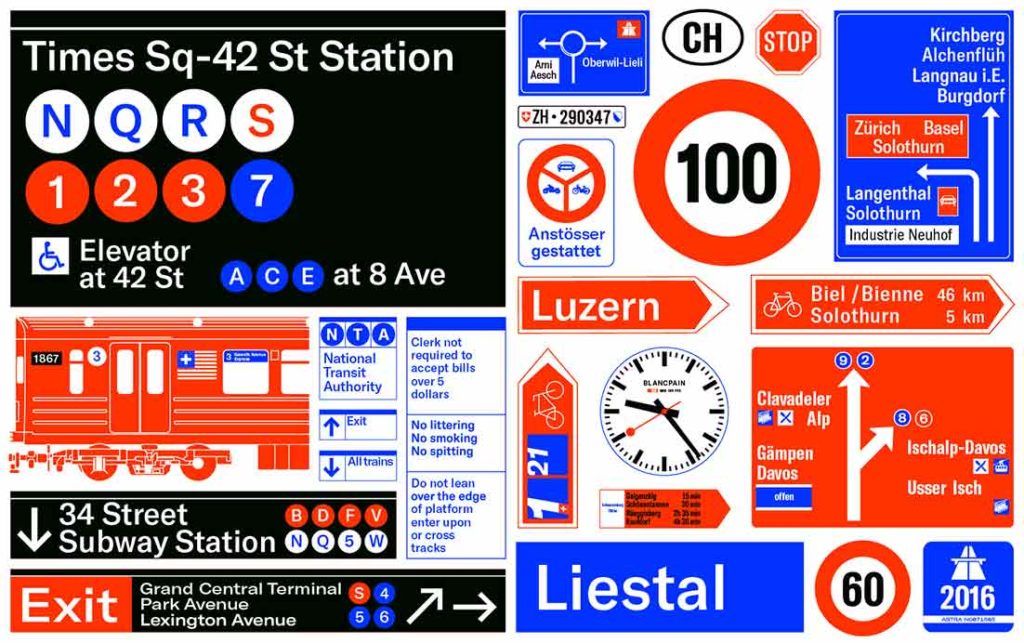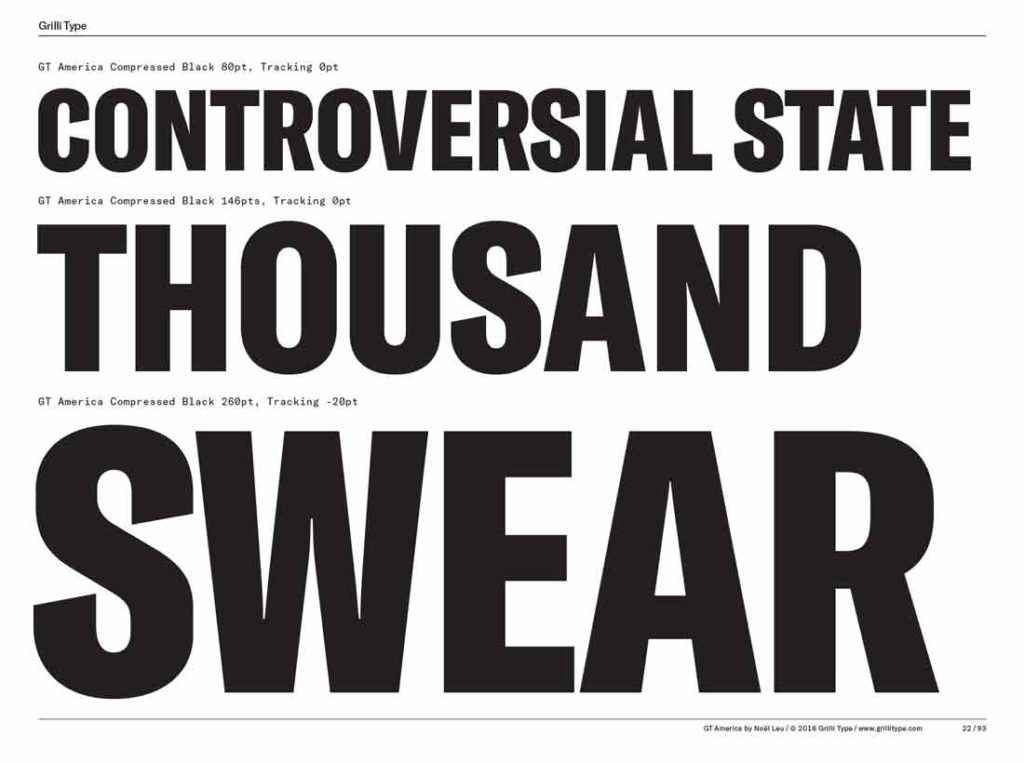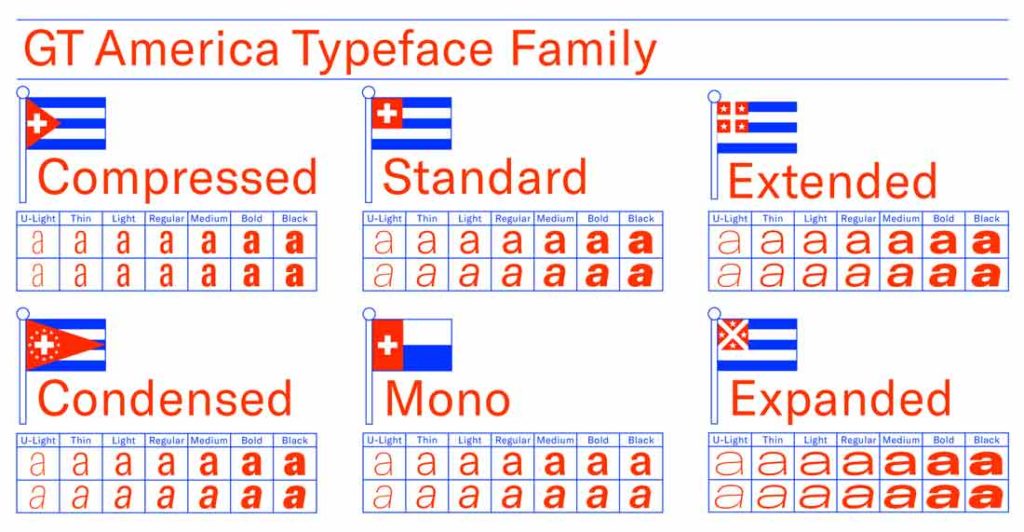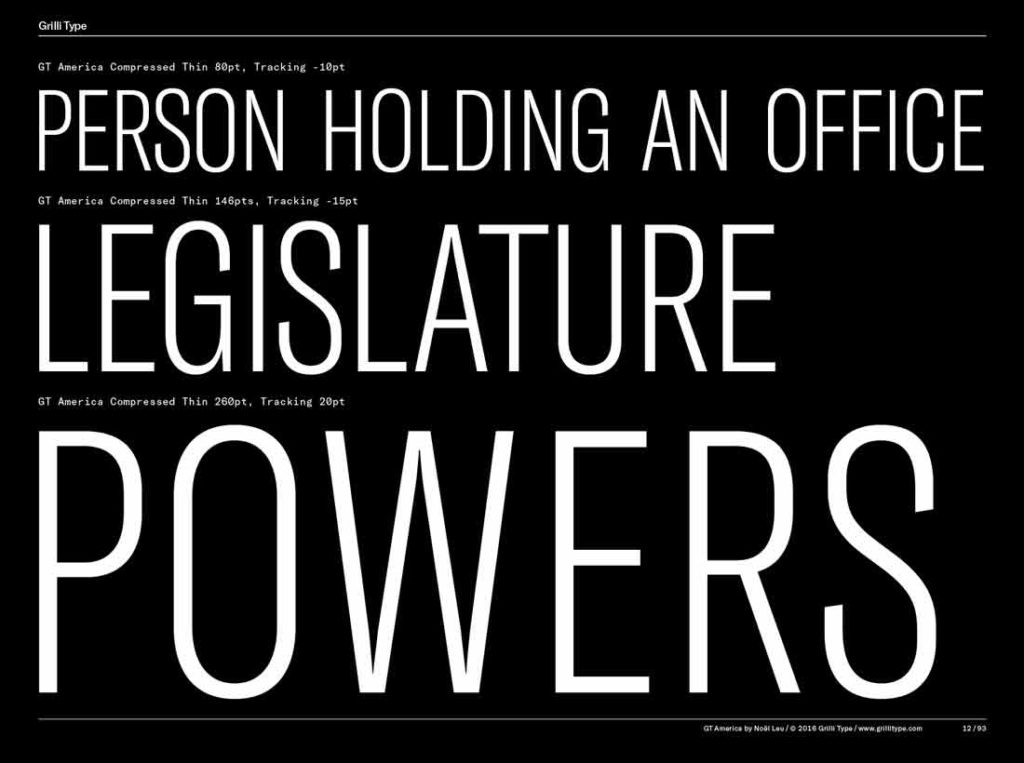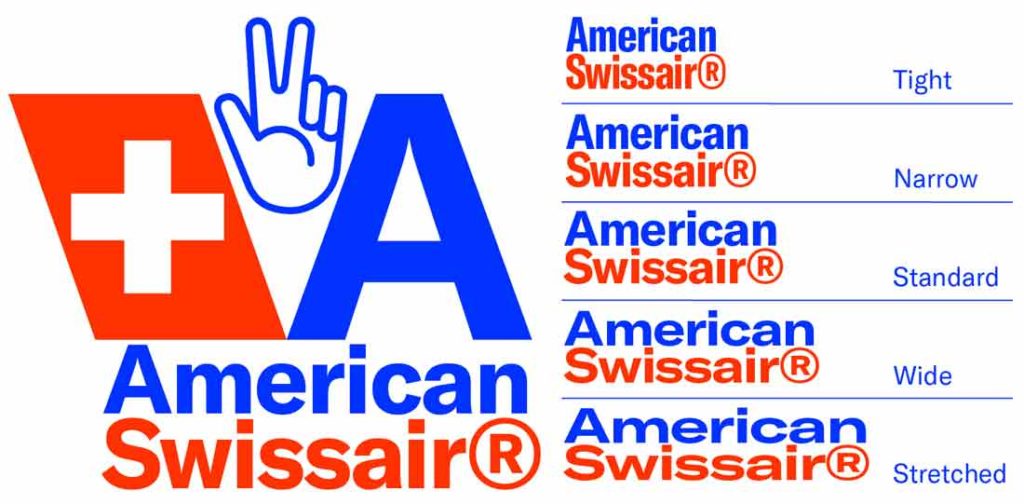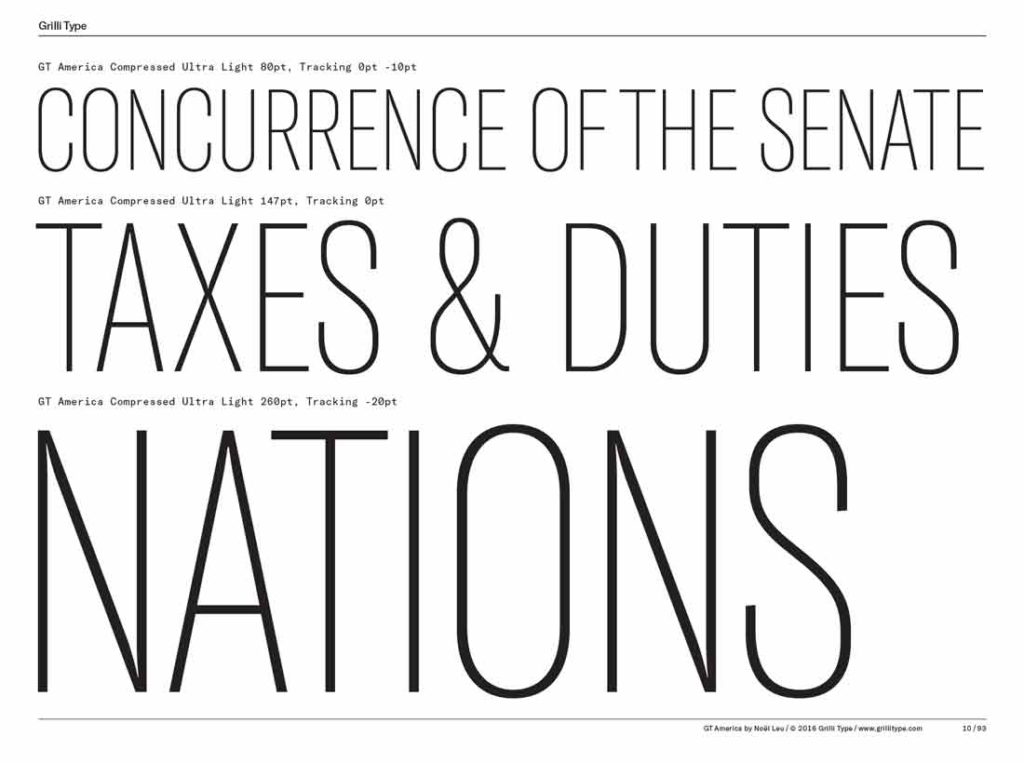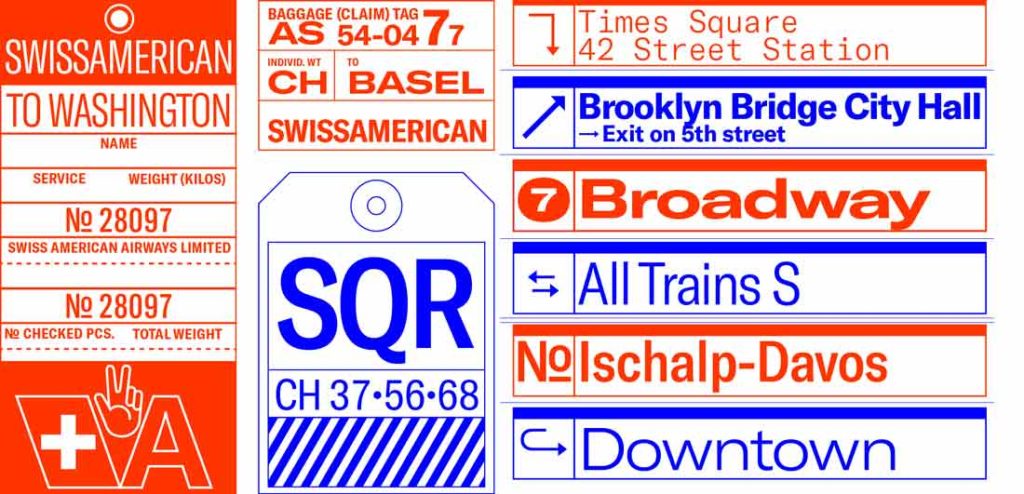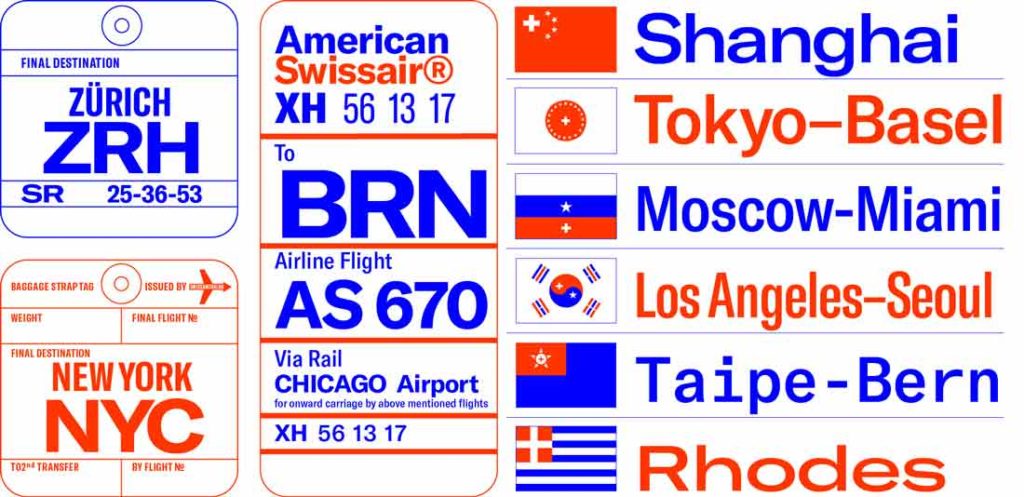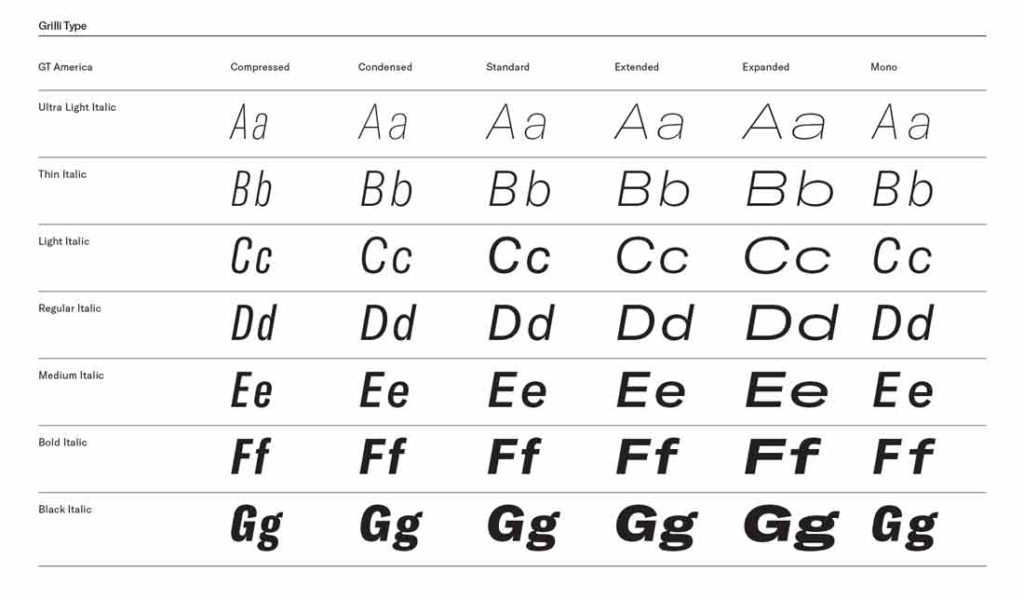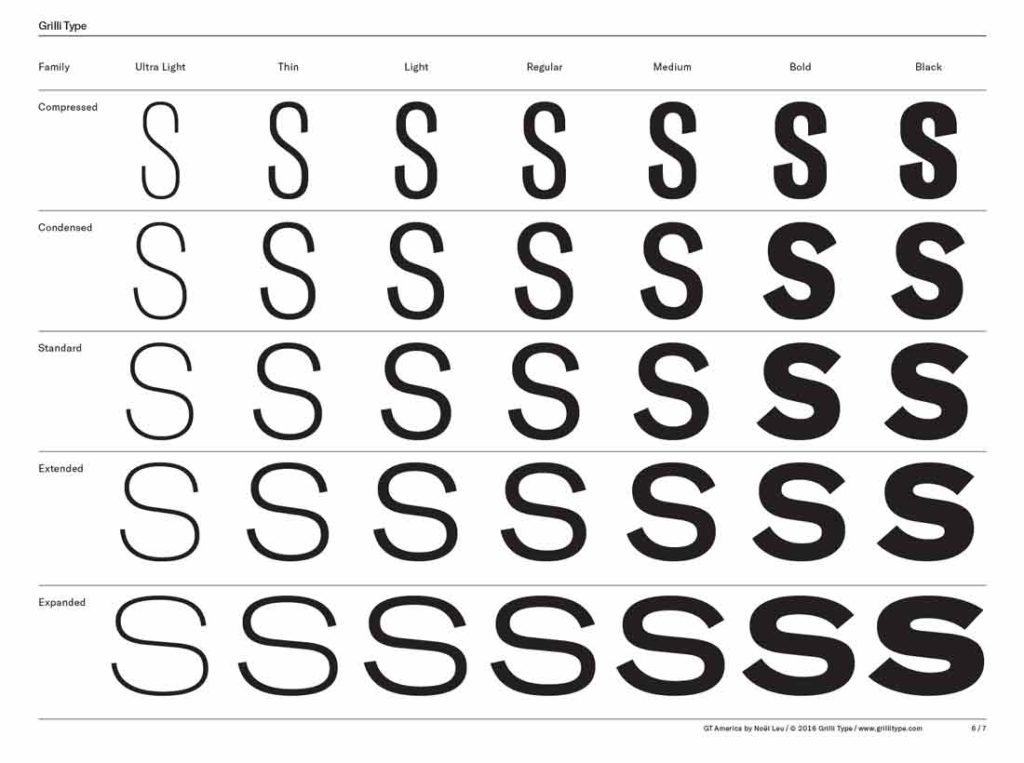
Name: GT America
Designers: Noël Leu, with Seb McLauchlan
Foundry: Grilli Type
Release Date: October 2016
Back story: “The concept was to design a Gothic typeface with a Swiss mindset,” says Leu. “I really love Gothic type designs, but in my opinion they tend to lack a systematic approach in both details and broad planning of the type family. GT America revisits this genre to build a bridge between American Gothic and Swiss Grotesk design.”
Why’s it called GT America? Like Helvetica, which is named after Switzerland (Helvetica is Latin for Swiss), the name GT America reflects its country of inspiration, the United States, and its rich tradition of Gothic letterforms.
What are its distinguishing characteristics? An incredible range of built-in versatility: GT America consists of 84 styles in 6 widths (including a monospaced), grouped into 6 subfamilies. Stroke ending angles vary across each style for optimal legibility, and tapered stems keep tight corners, such as the counterspace at the top of a capital A, open and bright. GT America’s narrow overall design lends it an economical feel for text setting, and the condensed version allows even greater flexibility in tight spaces.
For a wider, Swiss Grotesk feeling, the extended family comes in handy. For example, all styles contain an alternate lower-case g if you crave more of a Swiss Style look. Both the compressed and expanded versions make for great display typefaces.
What should I use it for? The typeface is meant to be quiet, not overly expressive, to keep it versatile in a variety of applications. It’s particularly useful for complicated corporate identity and branding projects, where a variety of styles is needed. Leu says, “We would really love to see a rebranding of an airline, as we’ve also proposed on our GT America typeface site [which is equal parts fun and informative]. Or maybe if the U.S. government needs a new corporate typeface with a fitting name…” Next president, we hope you’re taking notes.
Who’s it friends with? We put this question to Leu, who replied, “I think you’re asking the wrong guy. It’s outside of my Swiss comfort zone to pair typefaces with one another.” So that’s it. GT America, straight down the ballot.